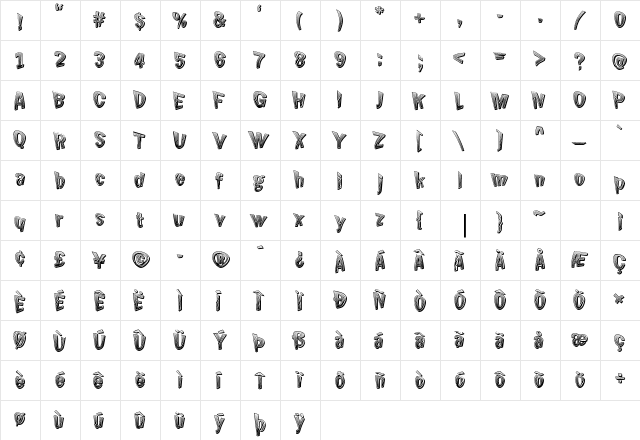
Chicken Butt Regular
Design Context for Chicken Butt Typeface
Chicken Butt is a composed and adaptable typeface that performs quietly and consistently across a wide range of design contexts.